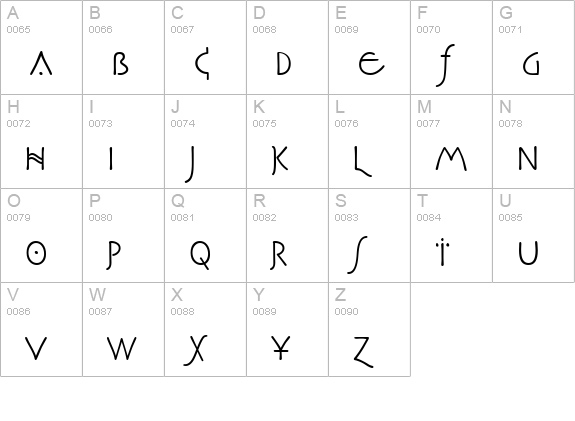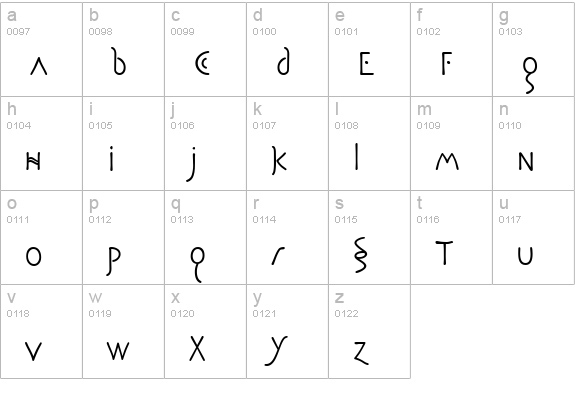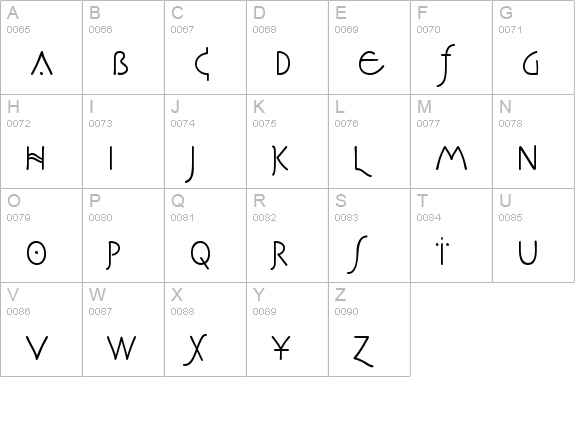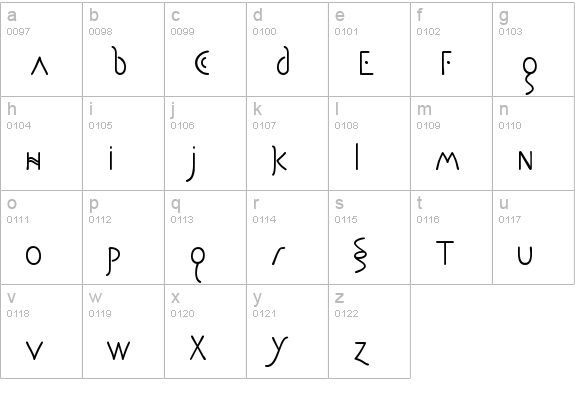
Pegasus Font Details
Introducing Pegasus, a captivating and versatile font that effortlessly combines elegance with a touch of whimsy. With its graceful curves and delicate strokes, Pegasus is a true gem in the world of typography. Whether used for headlines, logos, or body text, this font exudes a sense of sophistication and creativity that is sure to captivate any audience. What sets Pegasus apart is not only its stunning design, but also the fact that it is completely free. Yes, you read that right – this extraordinary font can be yours without spending a dime. With Pegasus, you no longer have to compromise on quality or style due to budget constraints. Now, you can elevate your designs with this exceptional font while keeping your wallet happy. Downloading Pegasus is a breeze, as it is freely available at FontsMarket.com. Simply visit the website, search for Pegasus, and within seconds, you'll have this incredible font ready to take your designs to new heights. FontsMarket.com prides itself on providing a vast library of high-quality fonts, and Pegasus is no exception. So why wait? Unleash your creativity and give your designs the wings they deserve with Pegasus. Download the font for free at FontsMarket.com and embark on a journey of typographic excellence. With Pegasus, the possibilities are endless, and your designs will soar above the competition.